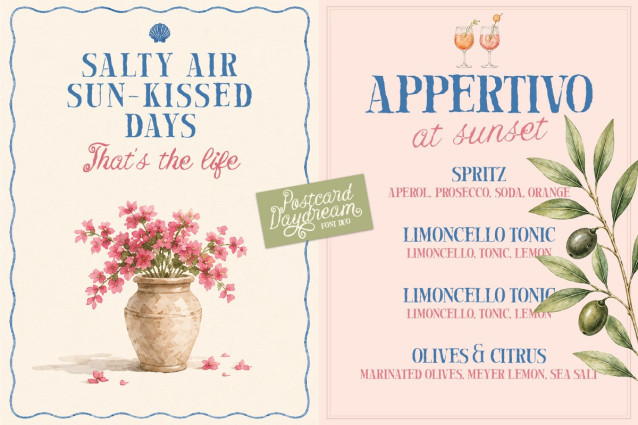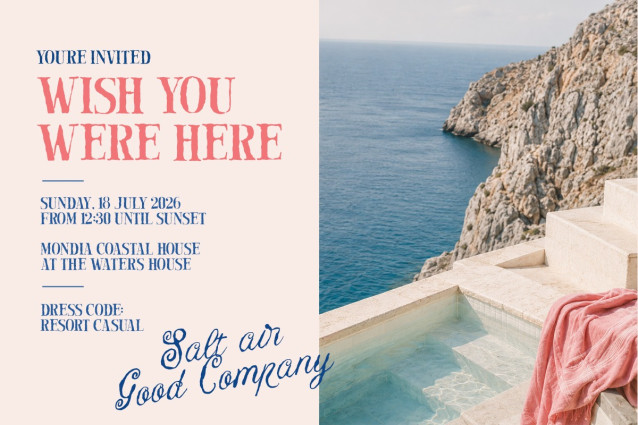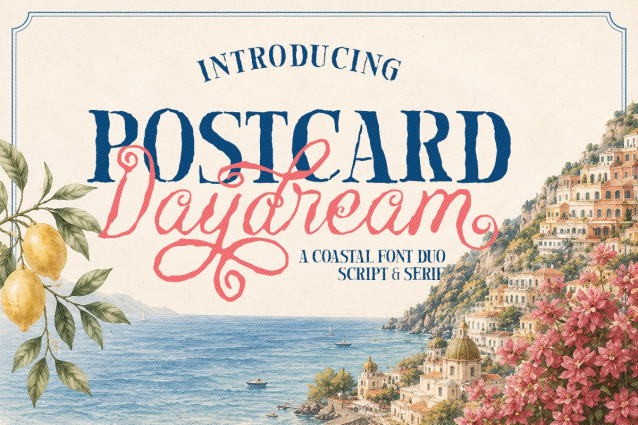
Postcard Daydream Coastal Font
Postcard Daydream is a charming font duo inspired by sunny coastlines, handwritten postcards, and slow summer days by the sea. It combines a textured vintage serif with a flowing script to create a relaxed Mediterranean look that feels warm, nostalgic, and welcoming. The serif brings classic character, while the script adds a soft handwritten touch that feels effortless and personal.
Postcard Daydream is a charming font duo inspired by sunny coastlines, handwritten postcards, and slow summer days by the sea.